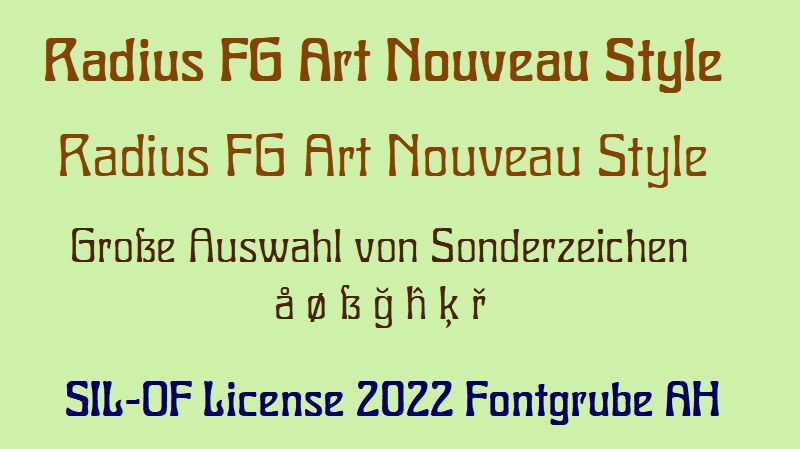
Radius FG is a new digitisation of the Art Nouveau hot-metal font Radium, published in 1905 by the German typefoundry Ludwig & Mayer.
The bold weight of this typeface became popular again in the 1970s on album and book covers after Hubertus Carl Hace Frey had reworked it under the new name Charleston.
Radius FG